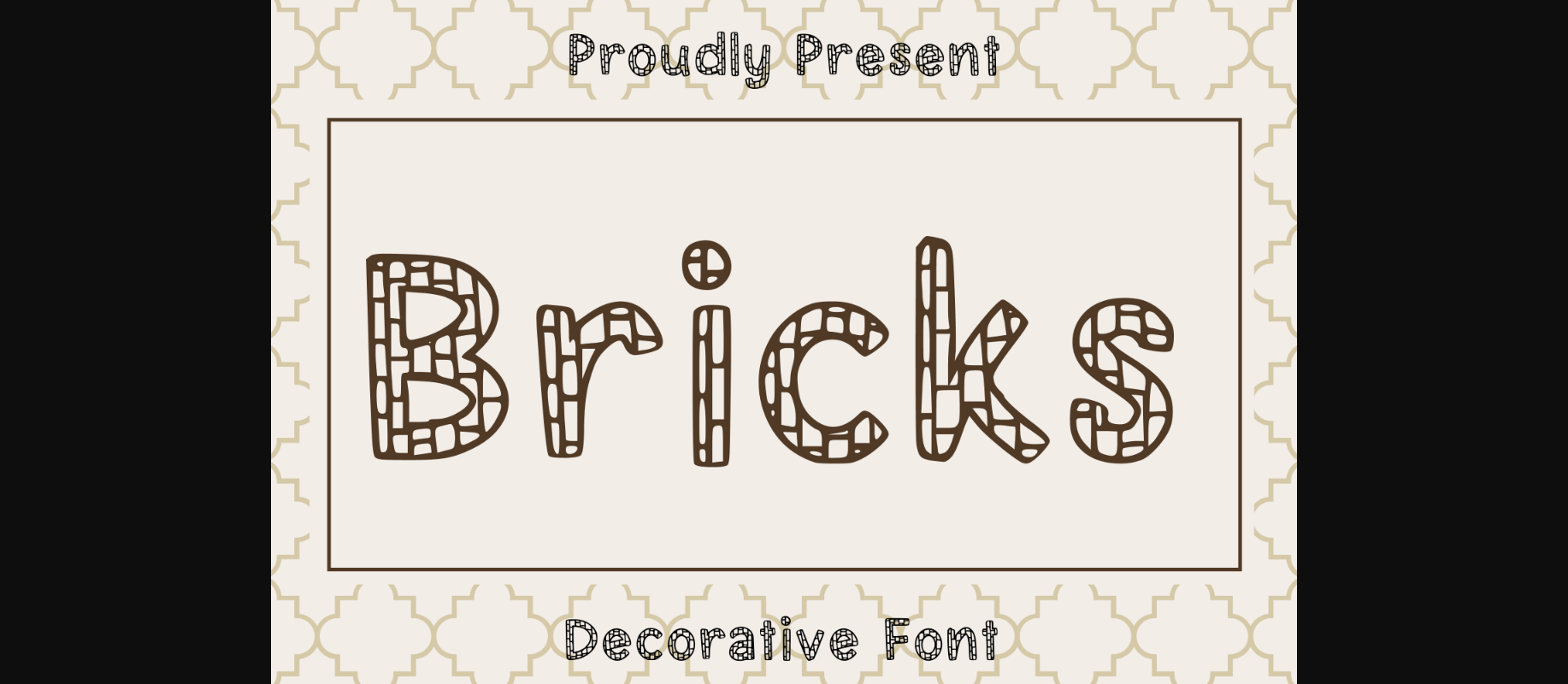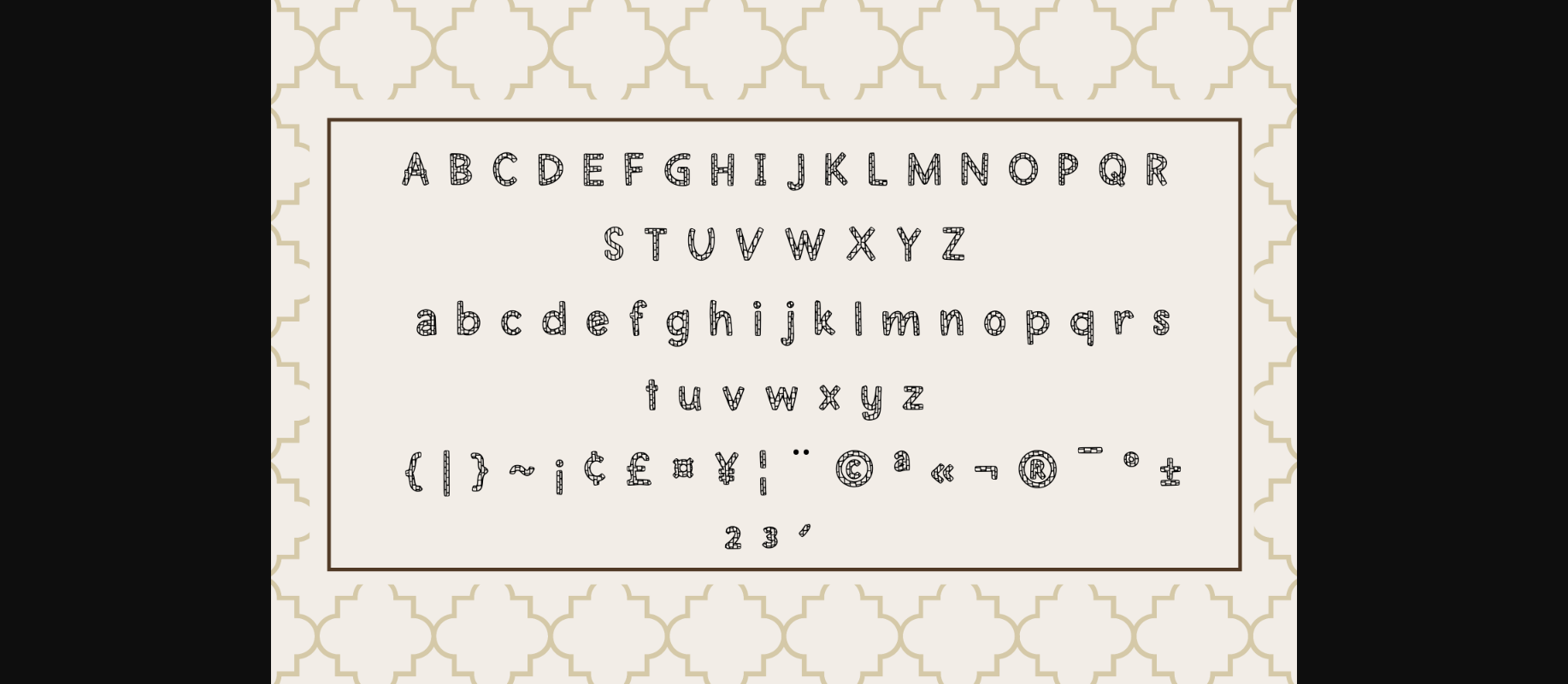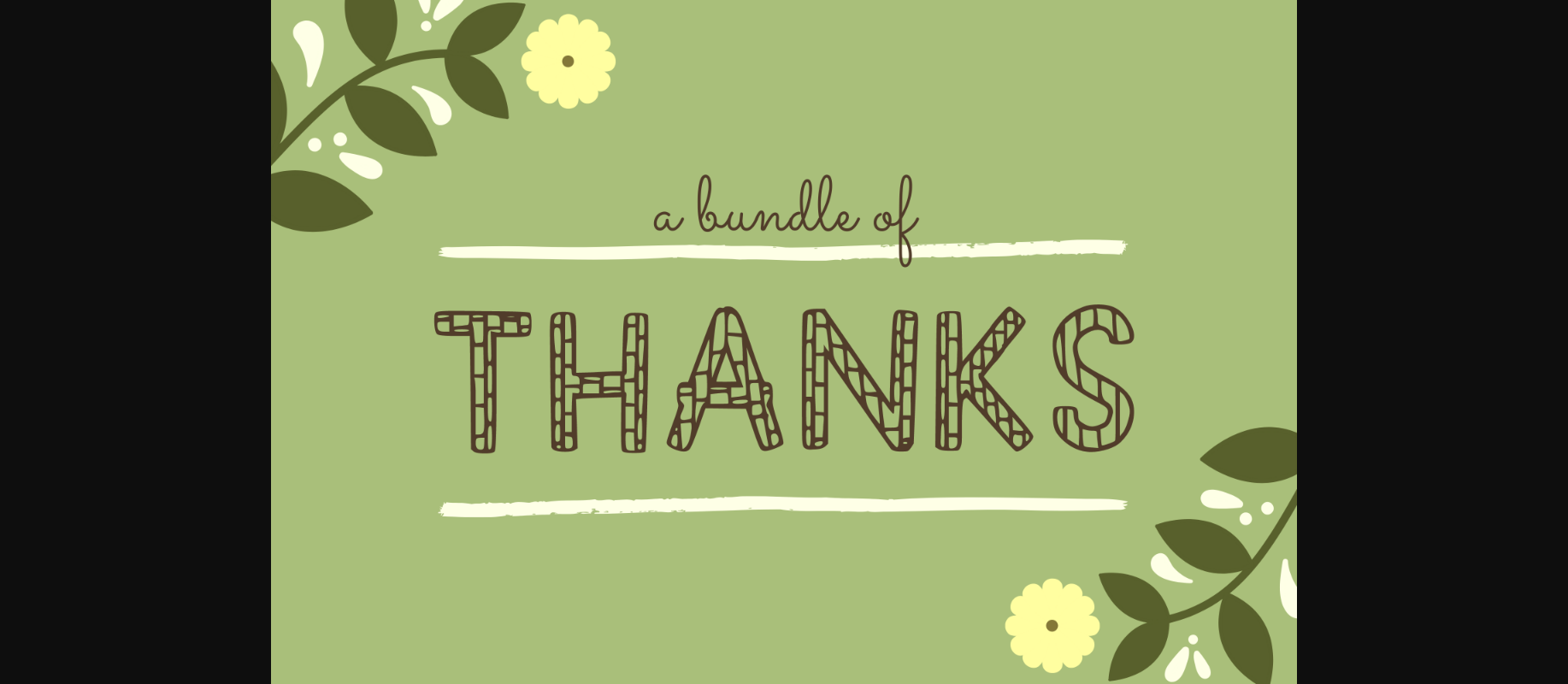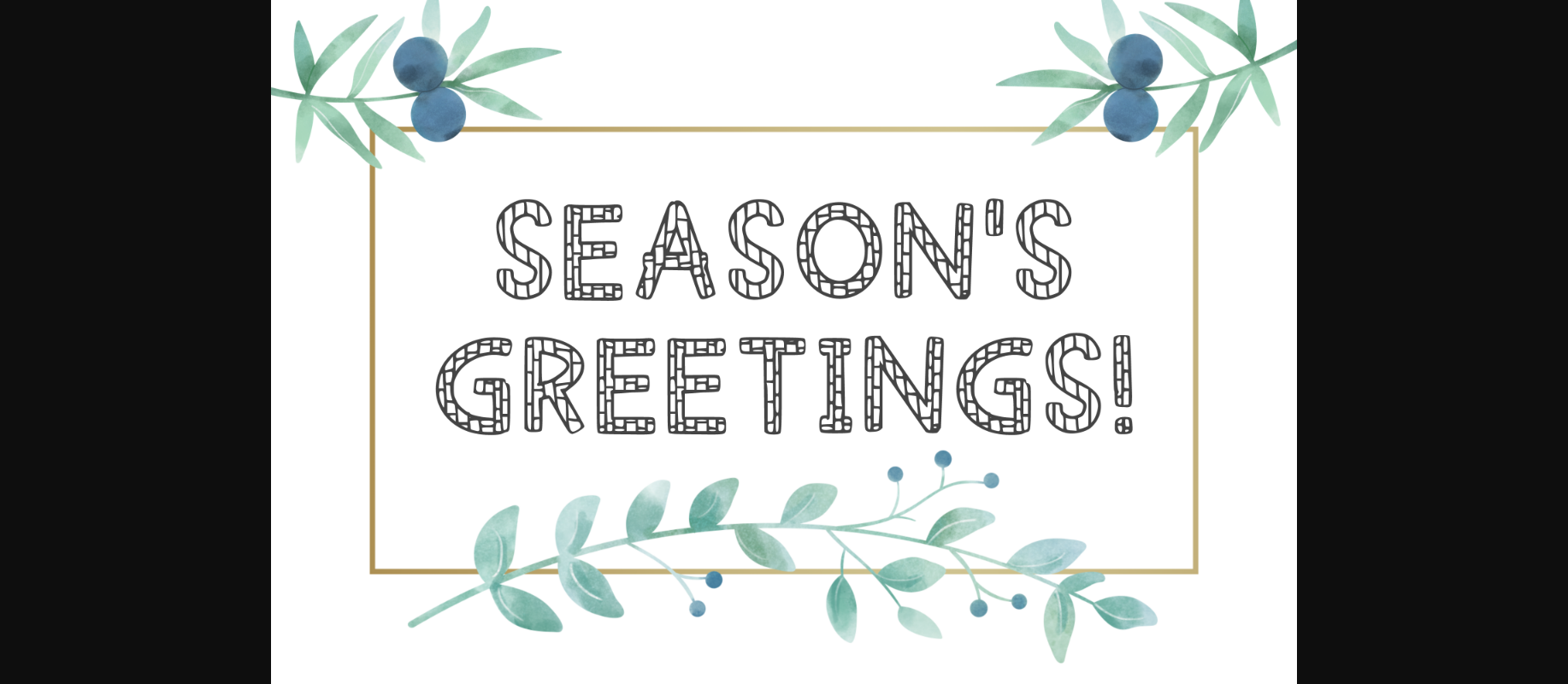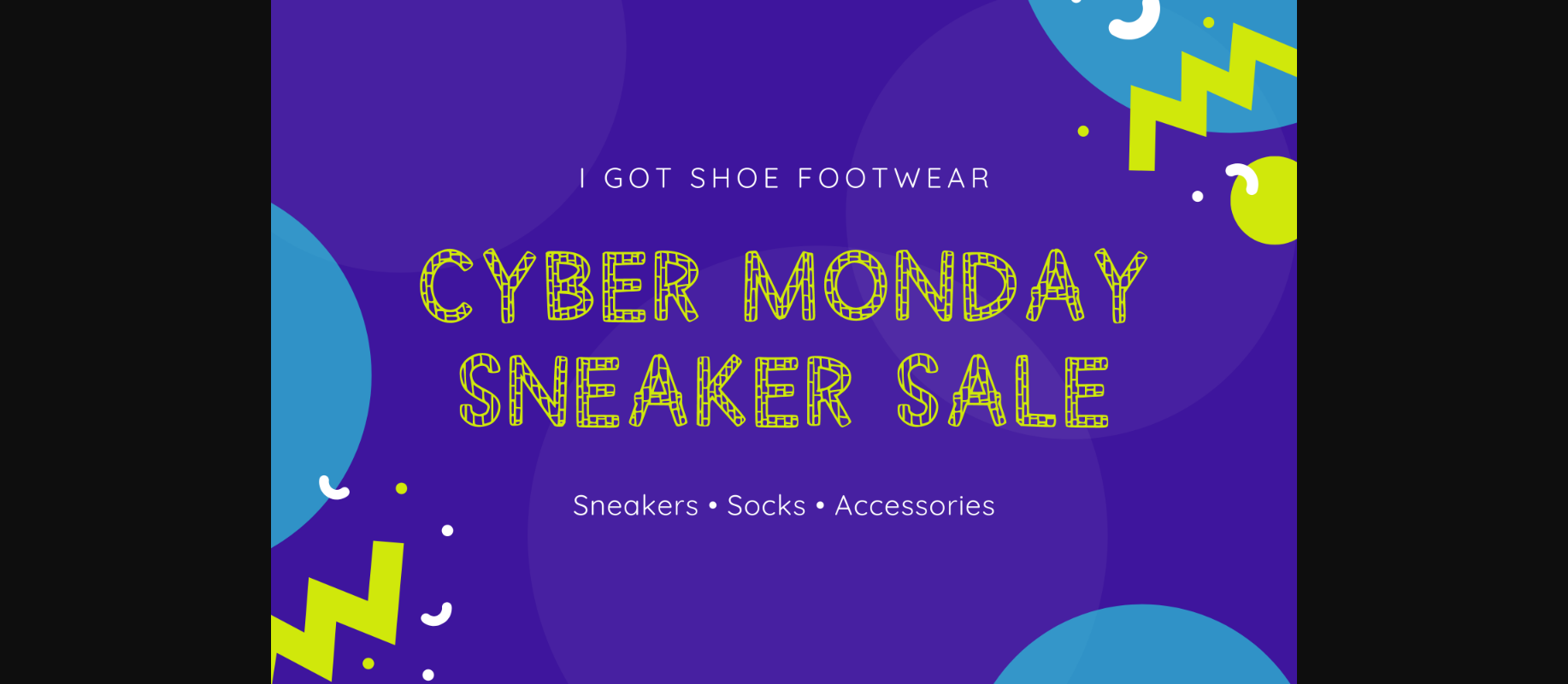
Bricks is a cool lettered and unique decorative font. It looks outstanding on a variety of design ideas. Add it confidently to your projects, and you will love the results.